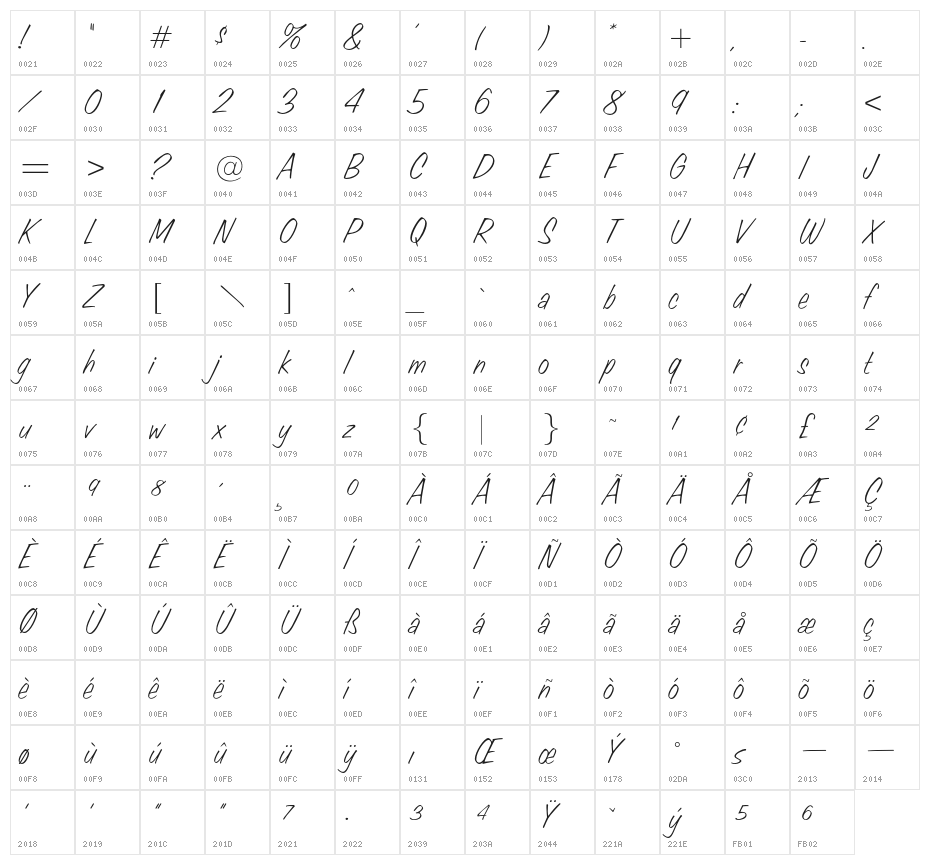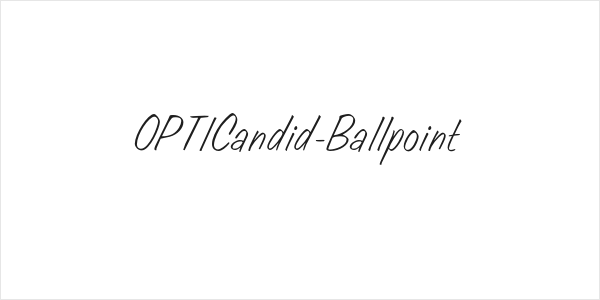
OPTICandid-Ballpoint Font
OPTICandid-Ballpoint Description
This font exudes a casual and handwritten style, reminiscent of a ballpoint pen's fluid strokes. The characters are slightly slanted, giving a dynamic and informal appearance. The uppercase letters are tall and slender, while the lowercase letters maintain a consistent flow with smooth curves and rounded edges. The numbers are clear and legible, matching the overall aesthetic. Special characters are elegantly integrated, maintaining the font's cohesive look. This font is perfect for projects that require a personal touch, such as invitations, greeting cards, or creative branding.
| Overall Style | Casual, Informal |
| Proposed Projects | Ideal for invitations, greeting cards, personal branding, and creative projects. |